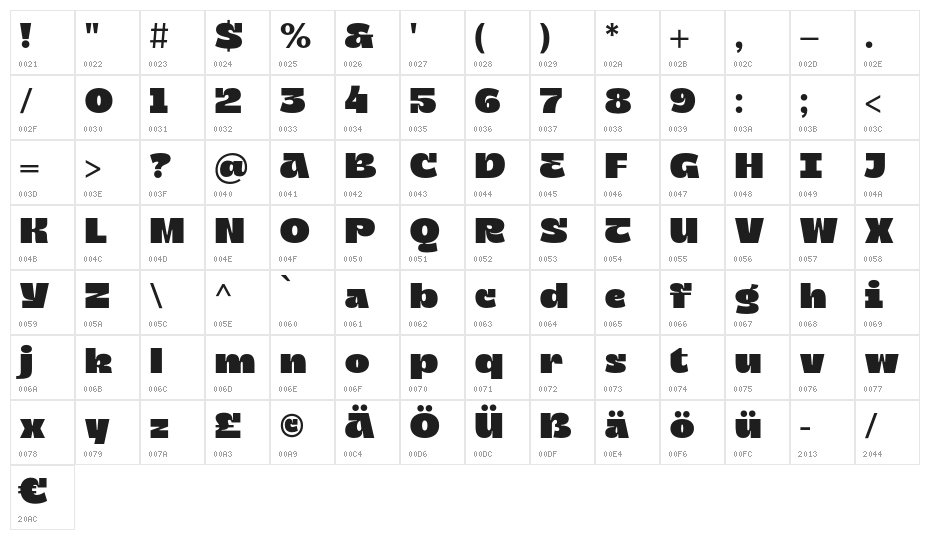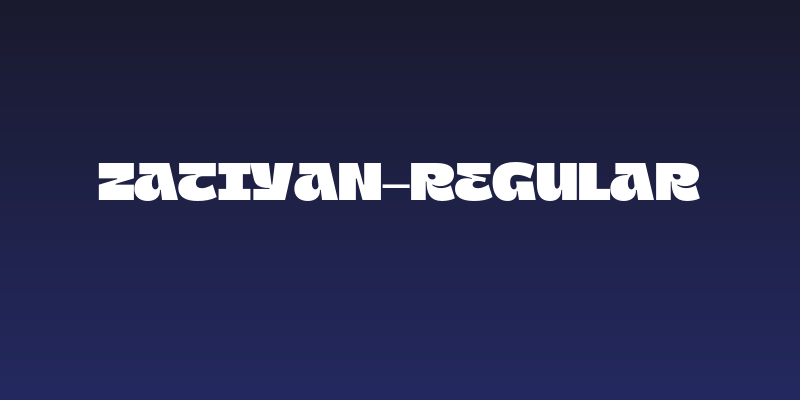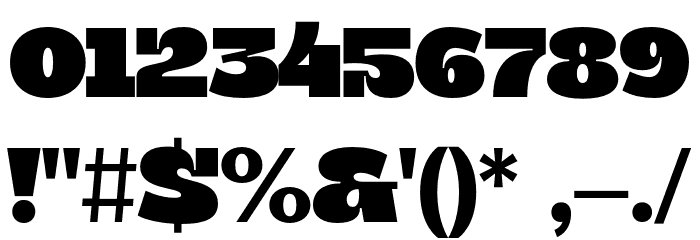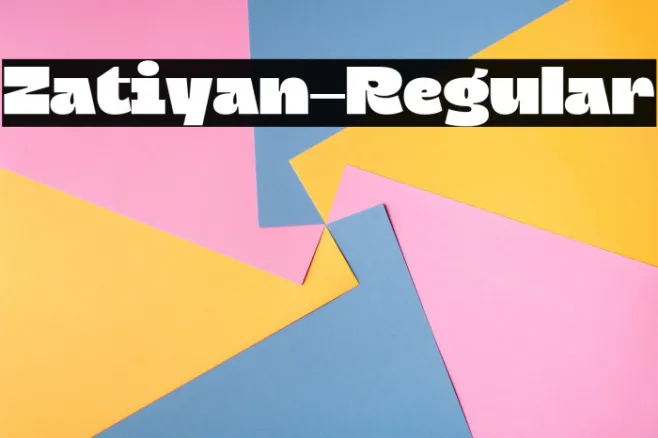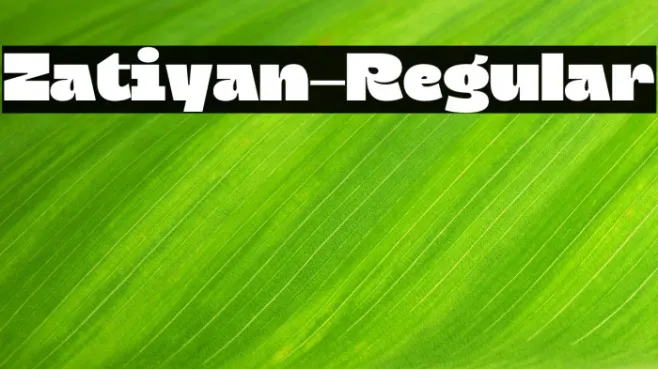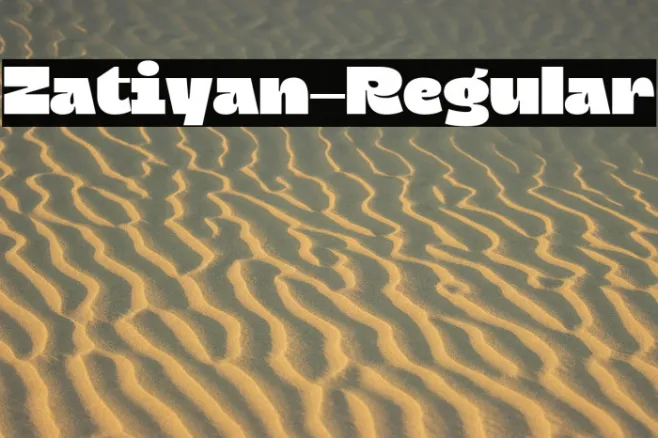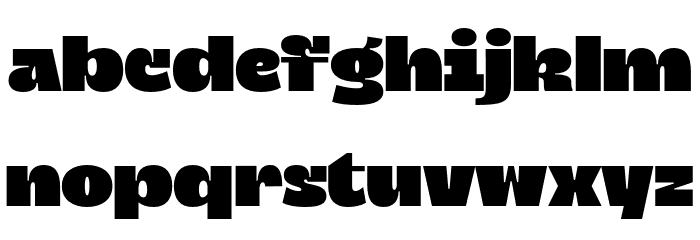
Zatiyan-Regular Font
Zatiyan-Regular Description
This font features a bold and striking design with a strong presence. The characters are thick and rounded, giving a sense of solidity and impact. The uppercase letters are particularly wide, while the lowercase letters maintain a consistent thickness. The numbers and special characters follow the same bold style, ensuring uniformity across all elements. The font's unique style is characterized by its playful yet assertive appearance, making it suitable for attention-grabbing designs.
| Proposed Projects | Ideal for posters, headlines, branding, and any design that requires a bold statement. |